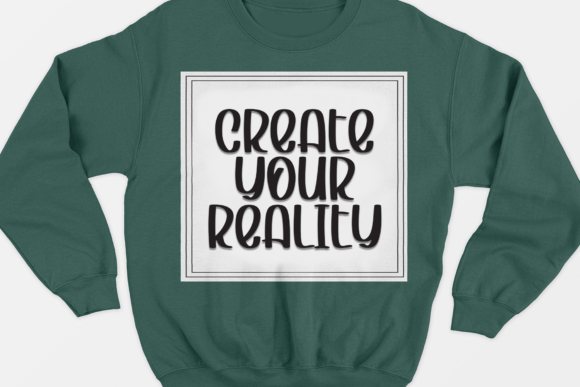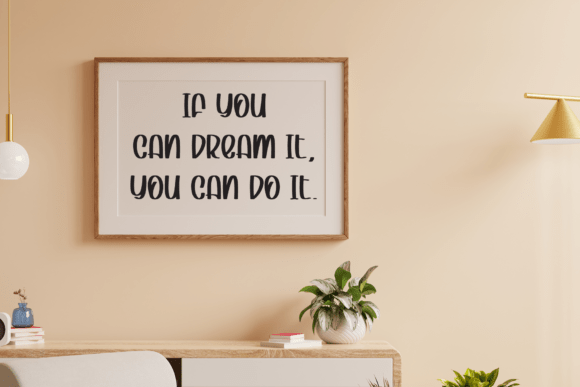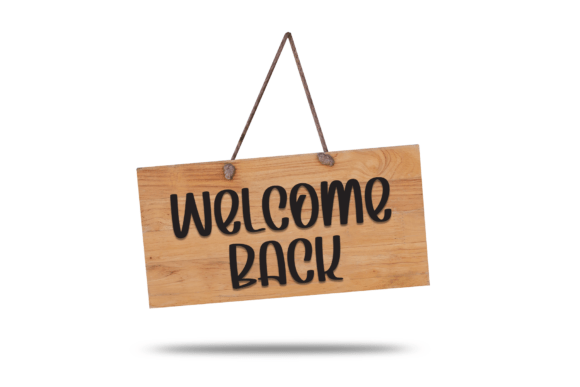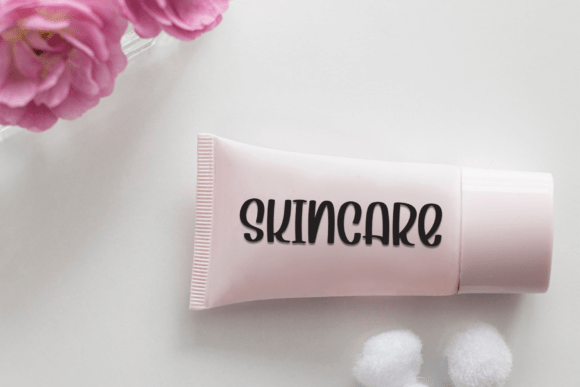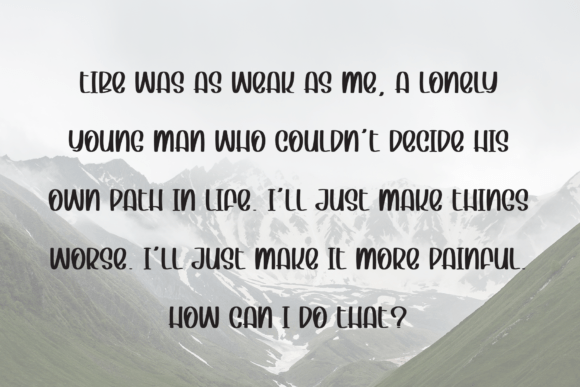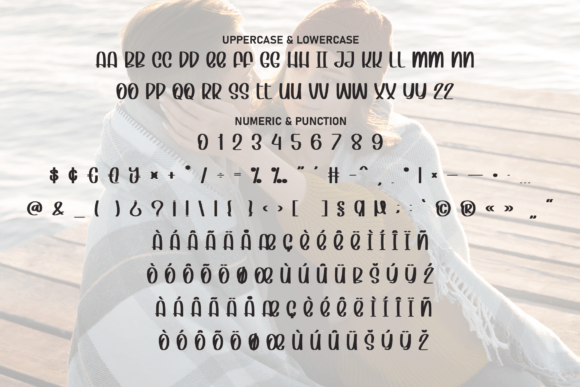
Dreaming Romance Font: Elevate Your Designs with a Touch of Modern Elegance
In the world of typography, fonts play a crucial role in conveying the tone and personality of a brand or design. For those seeking a casual yet sophisticated display font, Dreaming Romance is an excellent choice. This beautiful font combines simplicity with a friendly, approachable vibe, making it perfect for a wide range of design applications.
What Makes Dreaming Romance Stand Out?
Dreaming Romance is a display font that boasts clean lines, balanced letterforms, and subtle rounded edges. This unique combination gives it a modern, polished finish that captures the essence of contemporary handwritten typography. The font’s crisp structure and versatile style make it an excellent addition to any design, adding a warm and inviting touch that’s sure to engage audiences.
Key Features of Dreaming Romance Font
- Clean Lines and Balanced Letterforms: The font’s clean lines and balanced letterforms ensure that it remains highly legible, even at larger sizes. This makes it perfect for headlines, titles, and other display text.
- Subtle Rounded Edges: The subtle rounded edges give Dreaming Romance a friendly, approachable feel that’s perfect for brands looking to establish a warm and inviting personality.
- Modern Handwritten Typography: The font’s modern handwritten typography style makes it perfect for designers looking to add a touch of elegance and sophistication to their work.
- Versatile Style: Dreaming Romance is a versatile font that can be used across a wide range of design applications, from branding and packaging to digital content and more.
Dreaming Romance is an incredibly versatile font that can be used in a variety of design contexts. Here are just a few examples of how you can use this beautiful font:
- Branding: Use Dreaming Romance to create a strong brand identity that exudes warmth and approachability.
- Headlines: The font’s clean lines and balanced letterforms make it perfect for headlines and titles that need to grab attention.
- Packaging: Add a touch of elegance and sophistication to your packaging designs with Dreaming Romance.
- Digital Content: The font’s modern handwritten typography style makes it perfect for digital content, such as blog posts, social media graphics, and more.
Why Choose Dreaming Romance?
With so many fonts to choose from, why should you choose Dreaming Romance? Here are just a few reasons why this font stands out:
- Unique Style: Dreaming Romance has a unique style that’s both modern and elegant.
- Highly Legible: The font’s clean lines and balanced letterforms ensure that it remains highly legible, even at larger sizes.
- Versatile: The font’s versatile style makes it perfect for a wide range of design applications.
In conclusion, Dreaming Romance is a beautiful display font that’s perfect for designers and crafters looking to add a touch of modern elegance to their work. With its clean lines, balanced letterforms, and subtle rounded edges, this font captures the essence of contemporary handwritten typography. Its versatility and legibility make it perfect for a wide range of design applications, from branding and packaging to digital content and more. So why wait? Download Dreaming Romance today and start elevating your designs with a touch of romance and elegance!